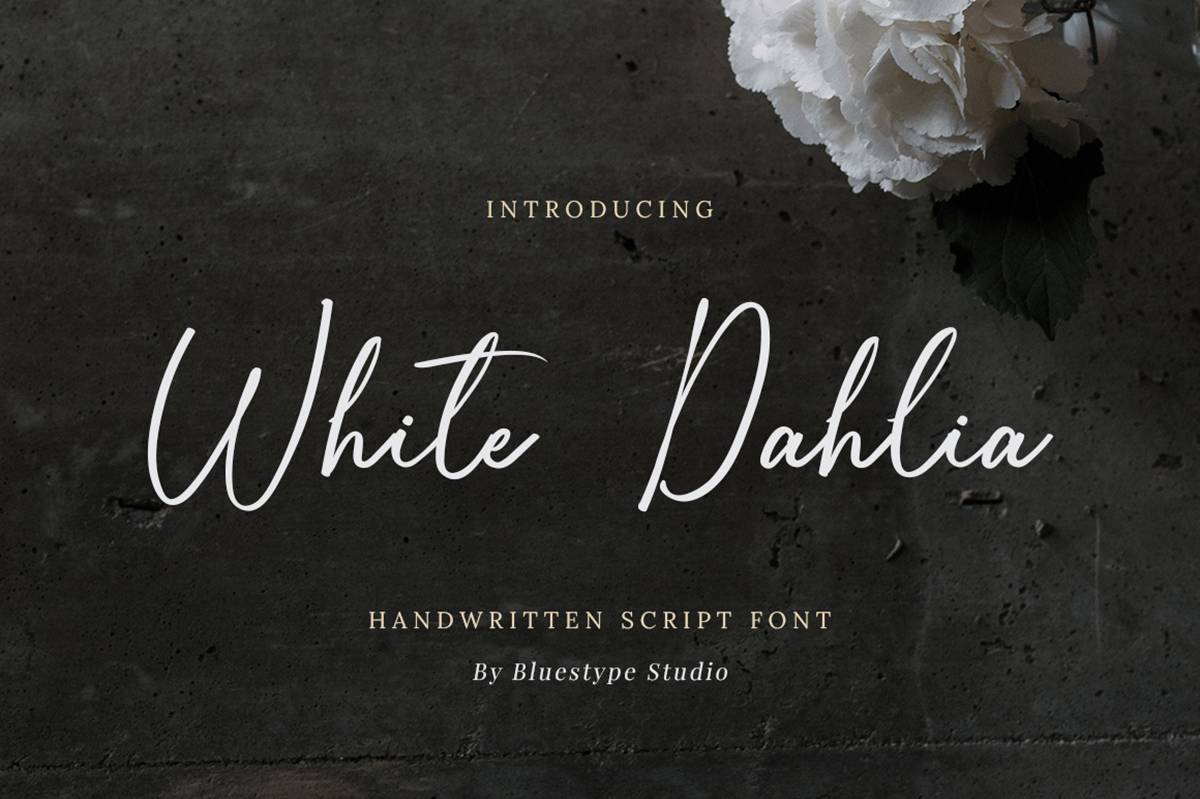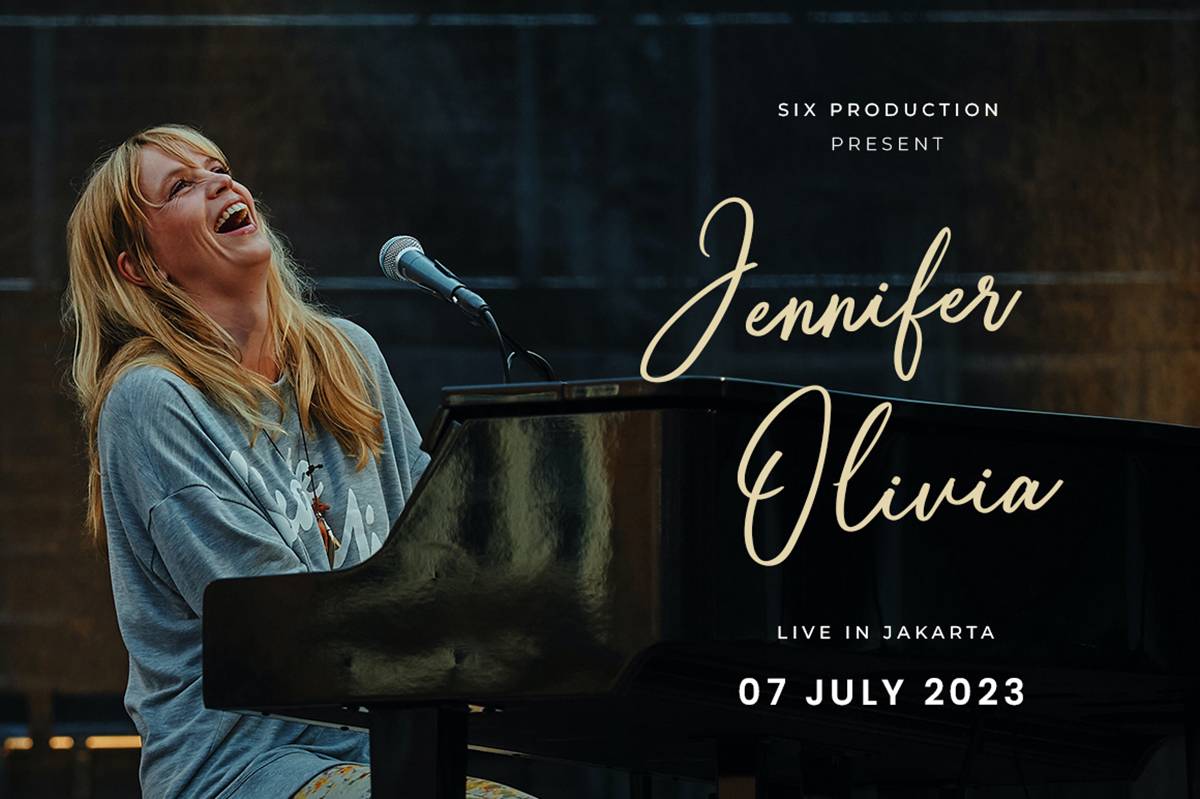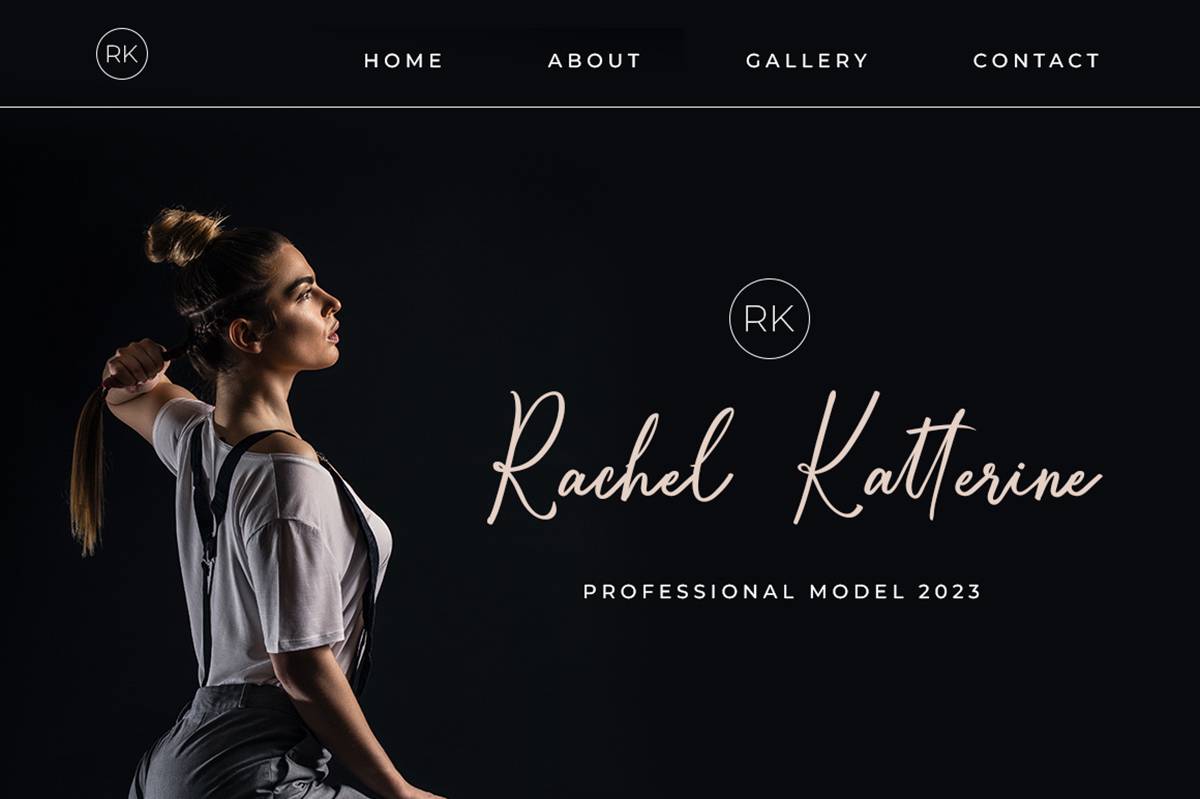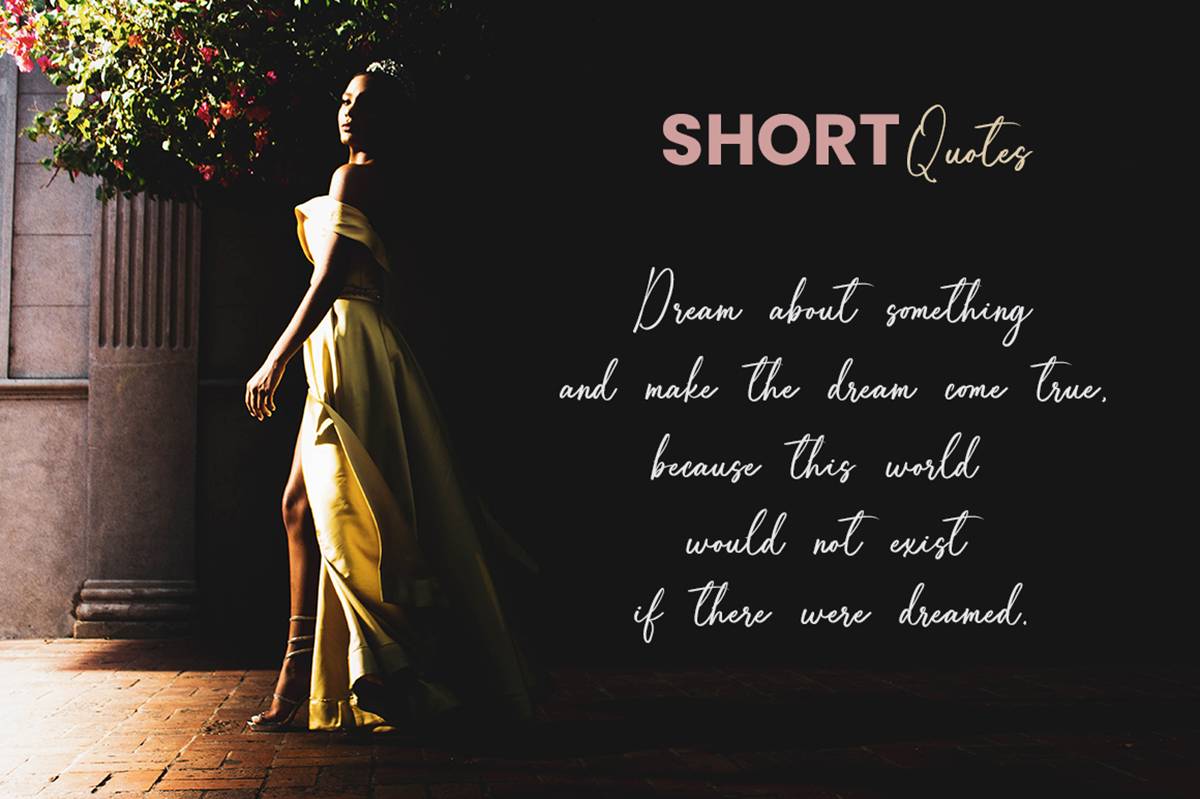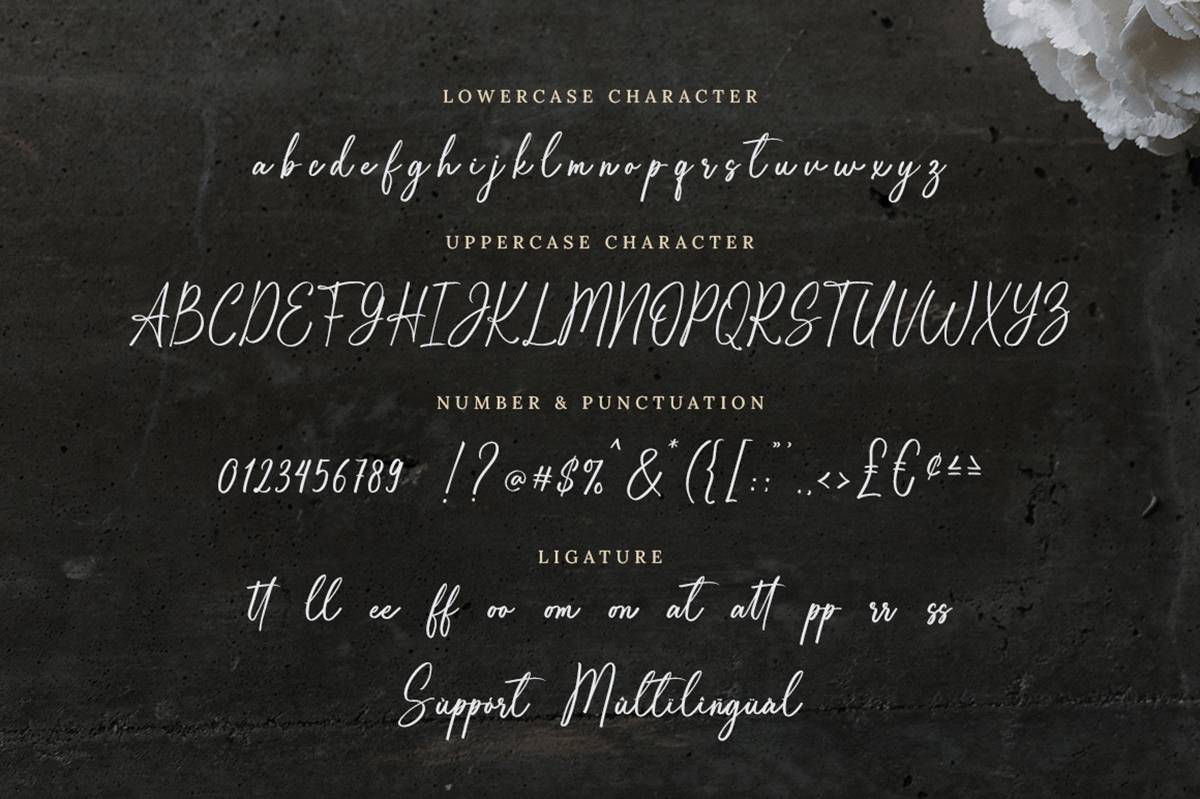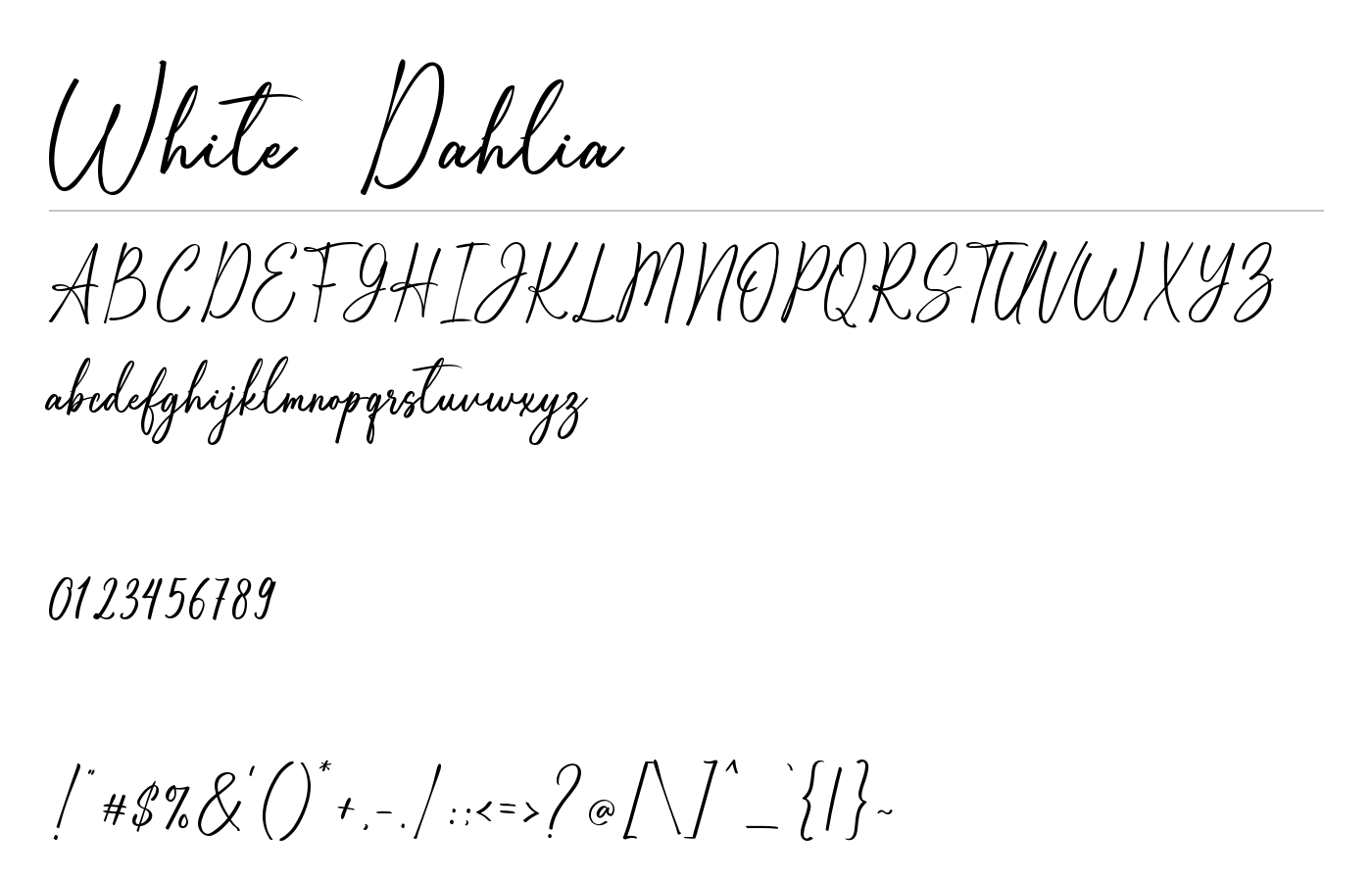
White Dahlia is an elegant script font with a delicate, hand-lettered feel, featuring slender strokes and graceful, flowing letterforms. Its light weight and airy spacing make it perfect for refined, feminine designs such as wedding invitations, branding, and stylish editorial content. This font adds a touch of sophistication and charm, ideal for projects seeking a modern yet personal and artistic vibe.
White Dahlia Font